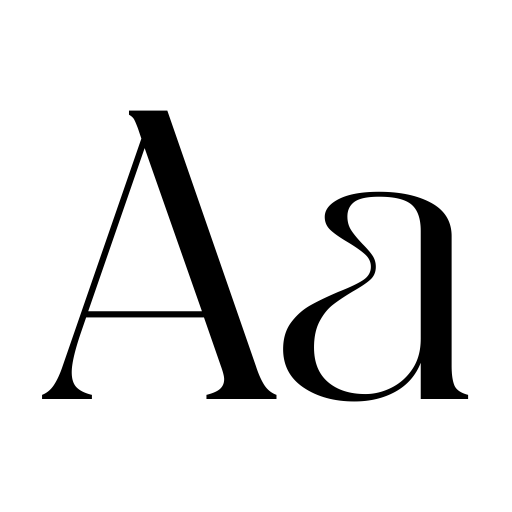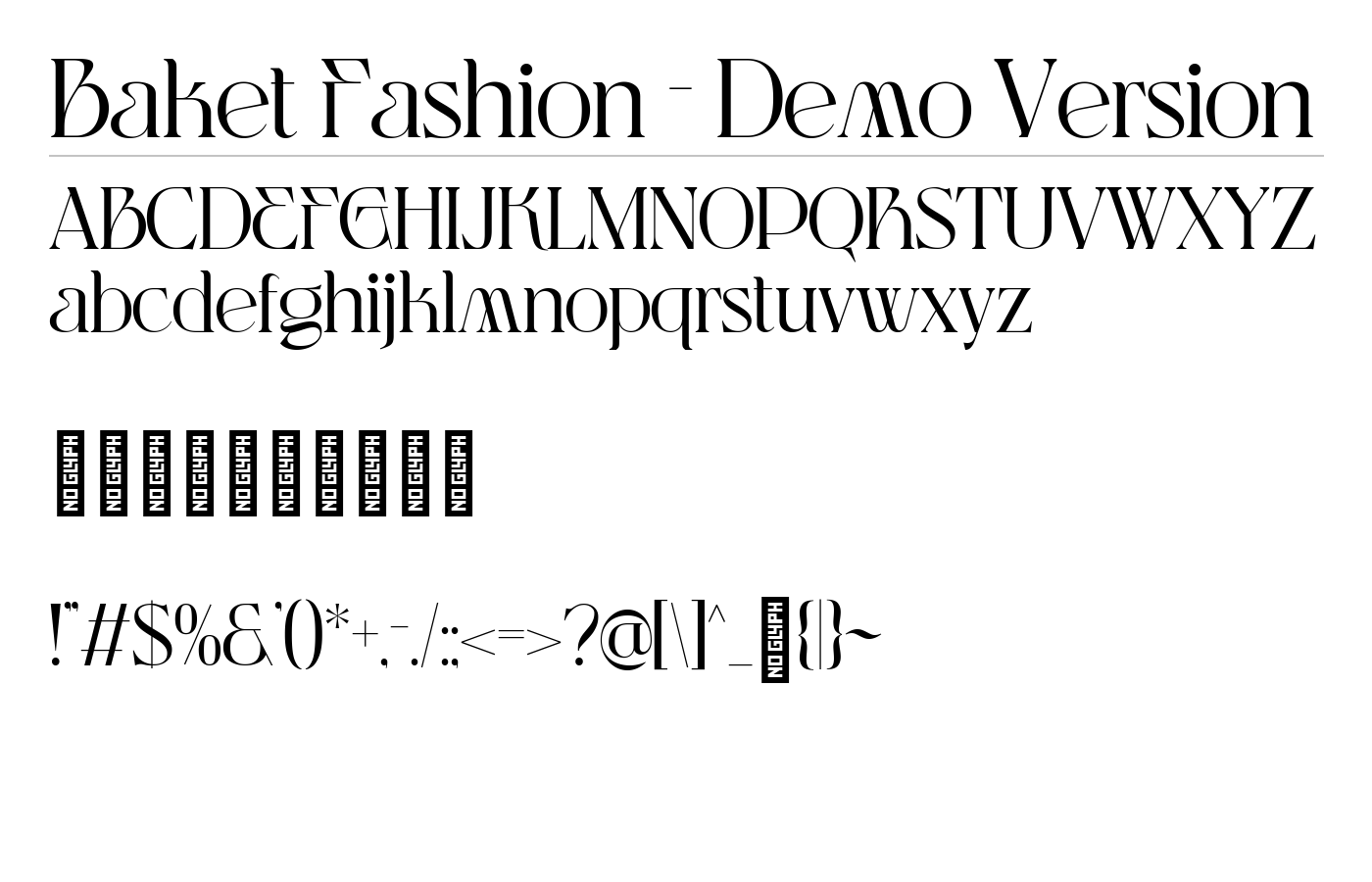
Baket Fashion is a sleek serif font with a modern twist, featuring high contrast strokes and elegant, sharp serifs that give it a sophisticated yet contemporary feel. Its unique letter shapes and refined details make it ideal for fashion branding, luxury editorial use, and stylish headlines where a touch of creativity and elegance is desired. This font works beautifully for projects that seek to combine classic refinement with modern design flair.
Baket Fashion - Demo Version Font
About Baket Fashion - Demo Version Font